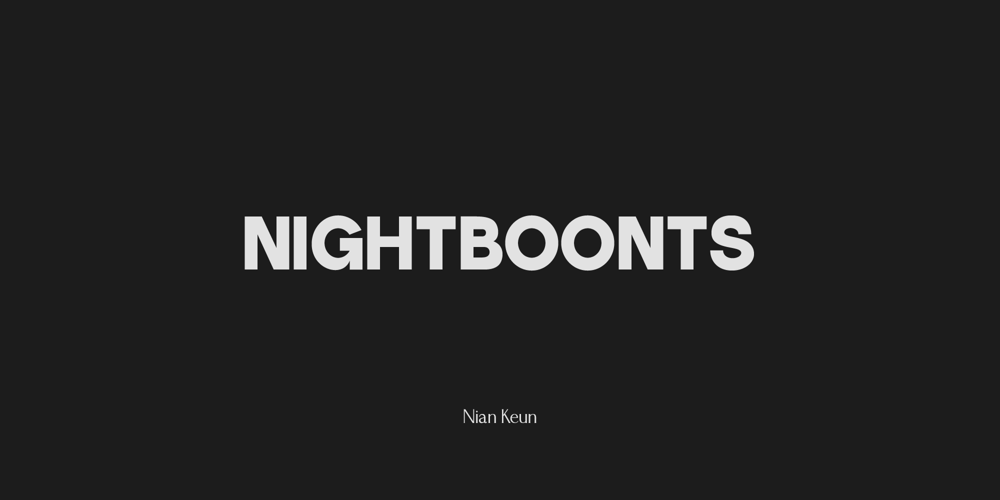
Nightboonts
Nightboonts font
Nightboonts Font Family was designed by Mugi Raharjo and published by Nian Keun Studio. Nightboonts contains 1 styles and family package options. “Nightboonts” is a stylish sans-serif typeface that embodies the essence of display fonts with a clean, modern aesthetic. This font stands out with its sleek and contemporary design, characterized by smooth lines and a minimalist approach. With its absence of serifs and ornate details, it exudes simplicity and elegance, making it the perfect choice for projects that demand a fresh, sleek appearance.This font prioritizes readability while maintaining a sense of modernity. Whether used for digital interfaces or printed materials, it ensures readability in a variety of applications. Its clean, sharp lines convey a sense of professionalism and sophistication, while its minimalist design adds a touch of simplicity and clarity to your design projects.This is an ideal choice for those of you looking for a sans-serif font that combines the clean, modern aesthetic of a display font with the versatility and readability of a classic sans-serif font. It is the perfect companion for contemporary design projects that demand style and substance.Thank you for coming to my shop and enjoying other fonts.